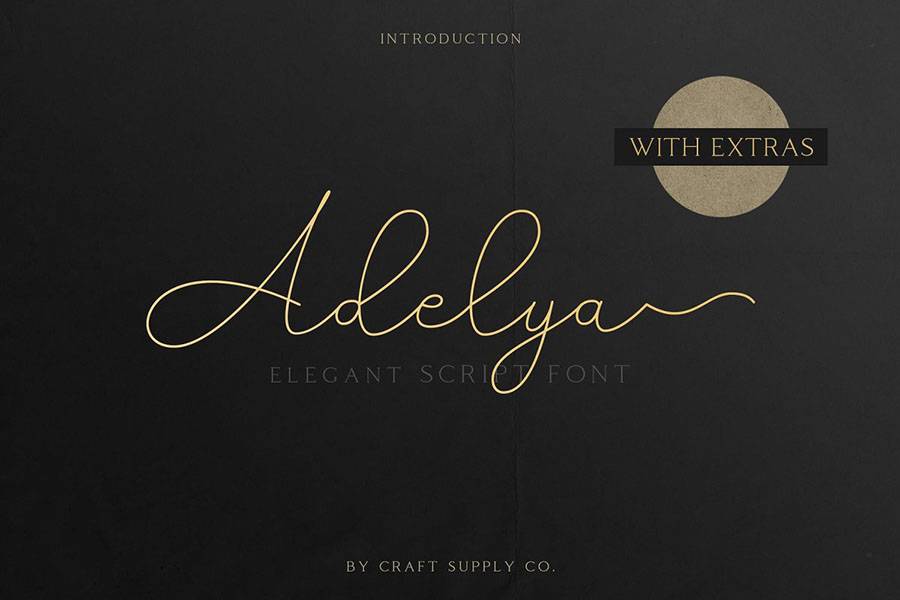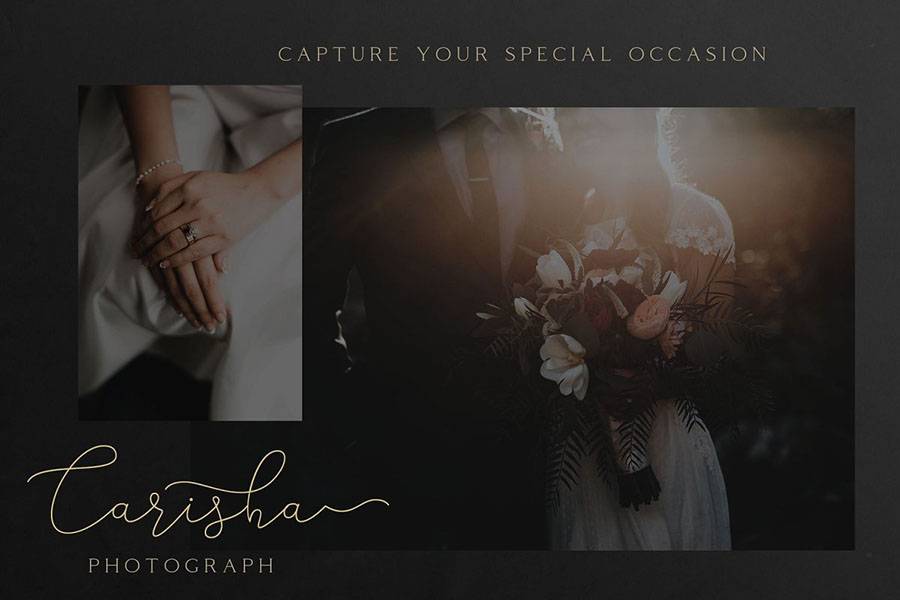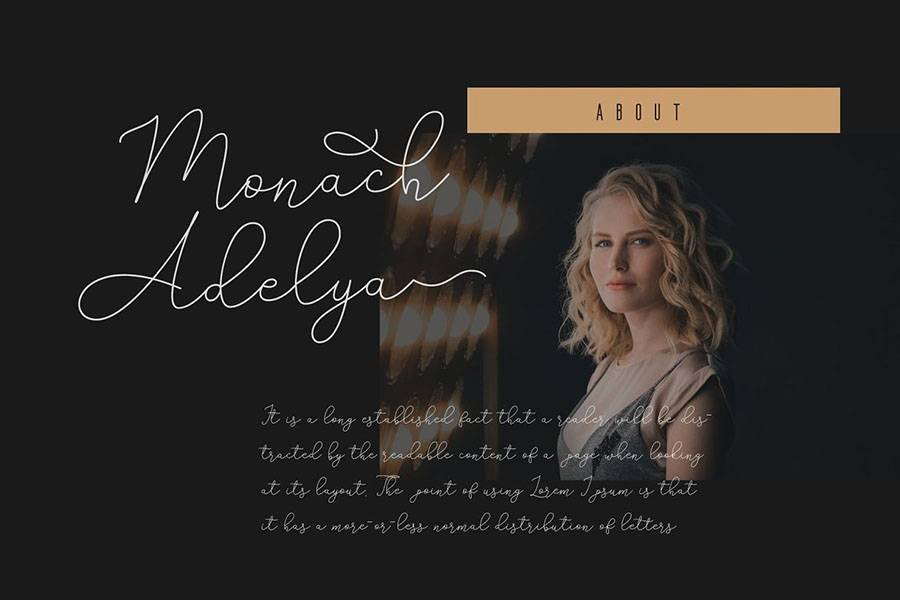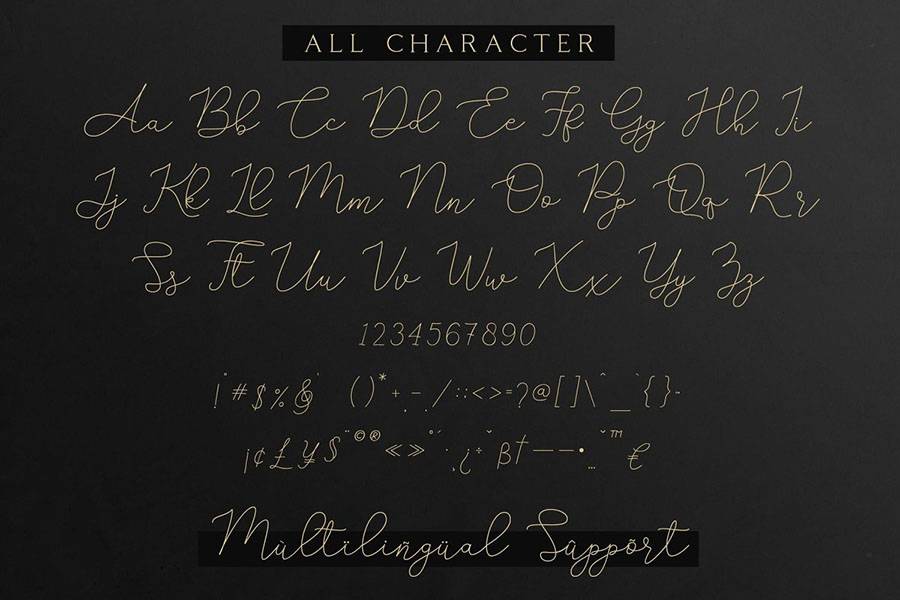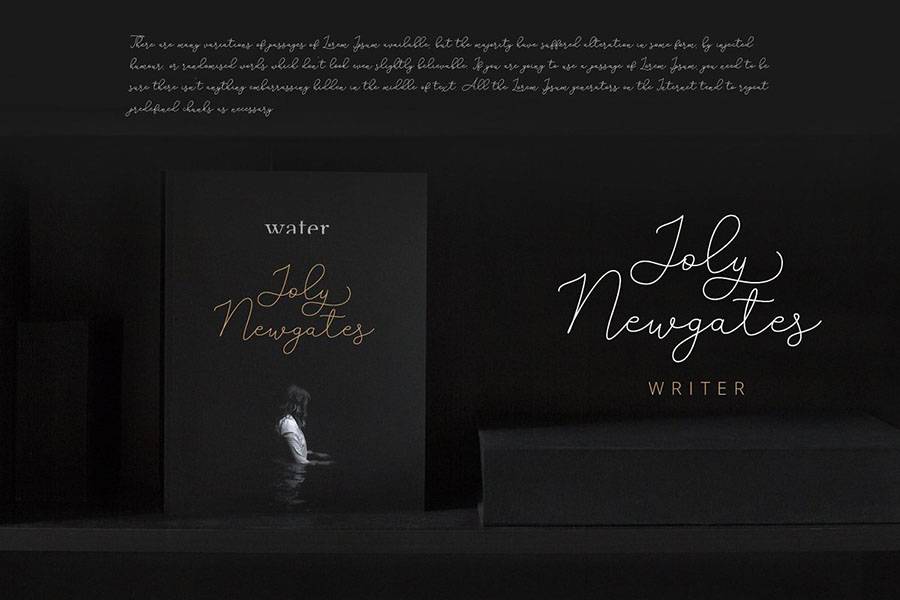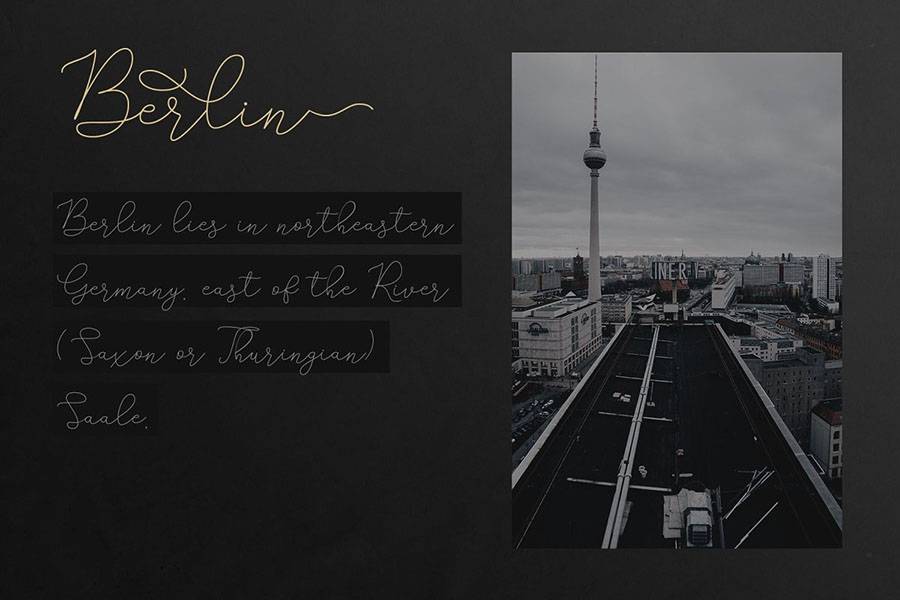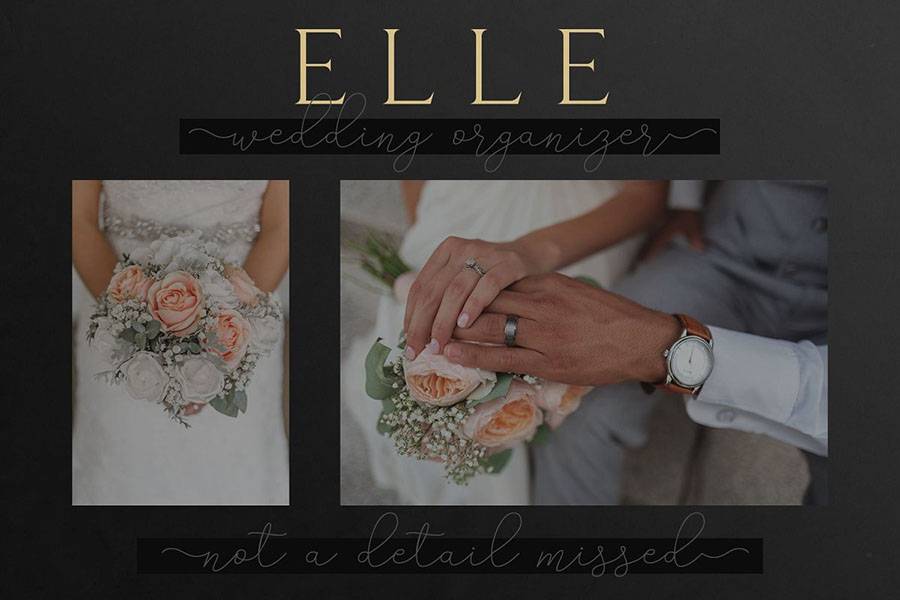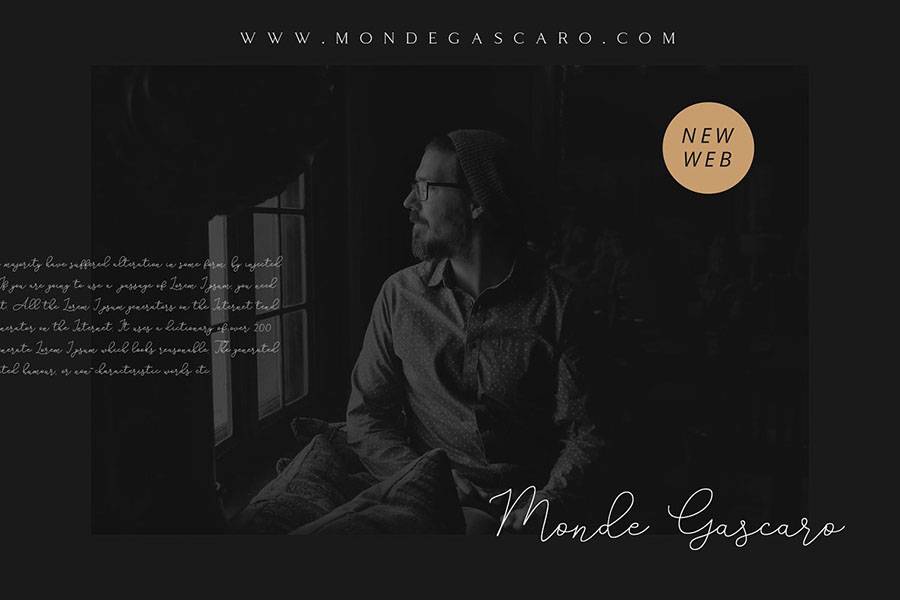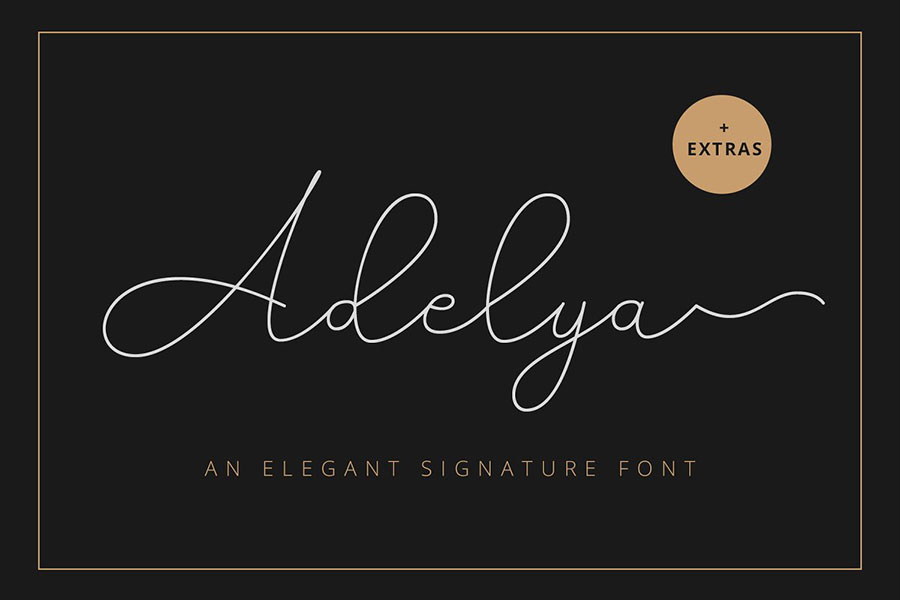
Adelya Handlettering Script is a delicate and elegant script font featuring thin, flowing strokes that mimic natural handwriting with a refined, airy feel. Its light weight and smooth, connected letterforms make it perfect for invitations, branding, and projects that seek a graceful and personal touch. This font works beautifully in designs that require a soft, sophisticated, and feminine aesthetic.
Adelya Handlettering Script Font
About Adelya Handlettering Script Font